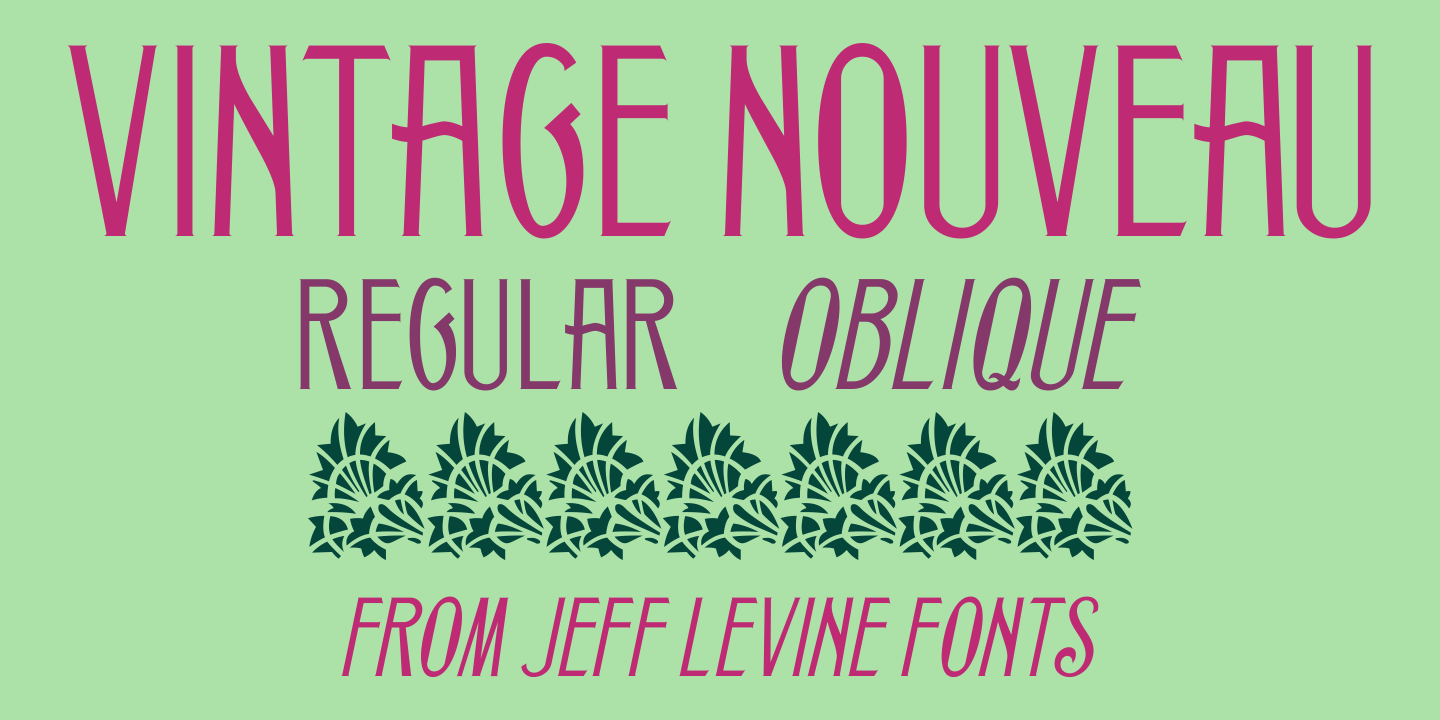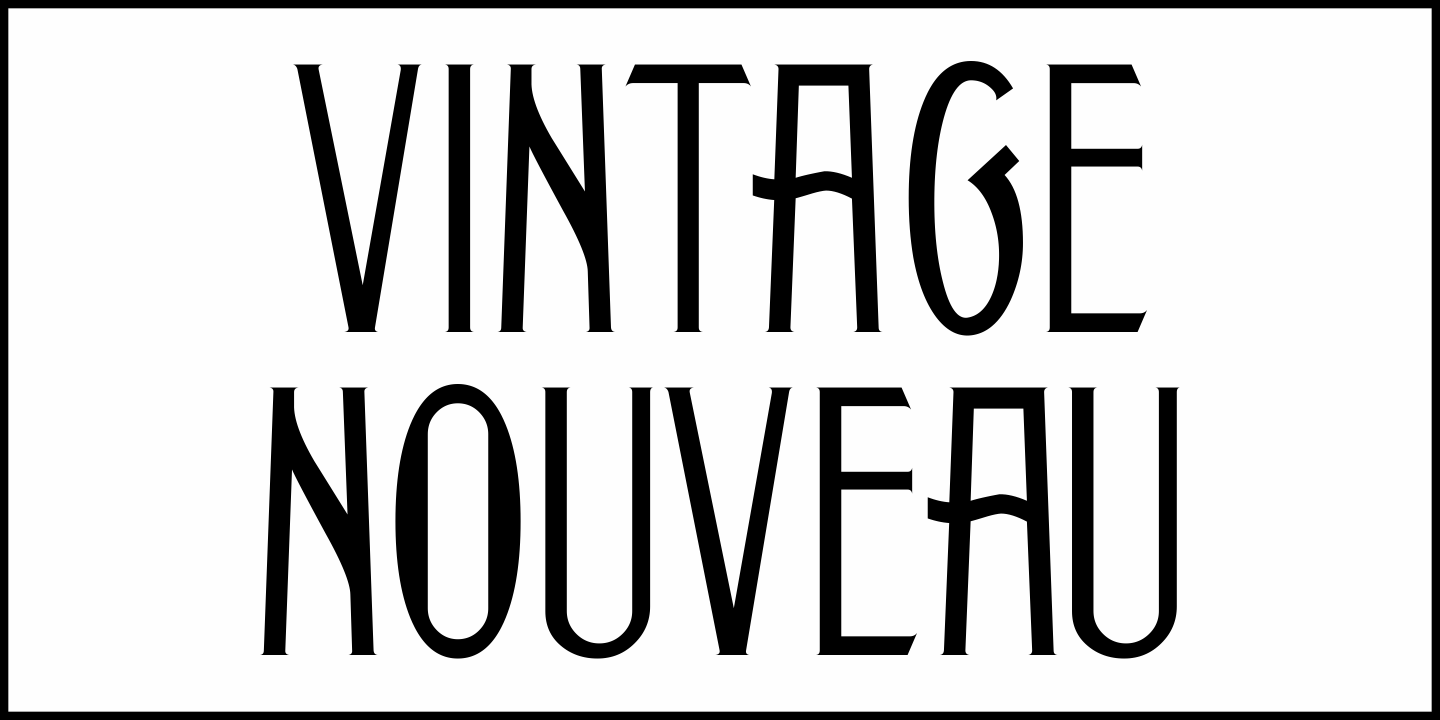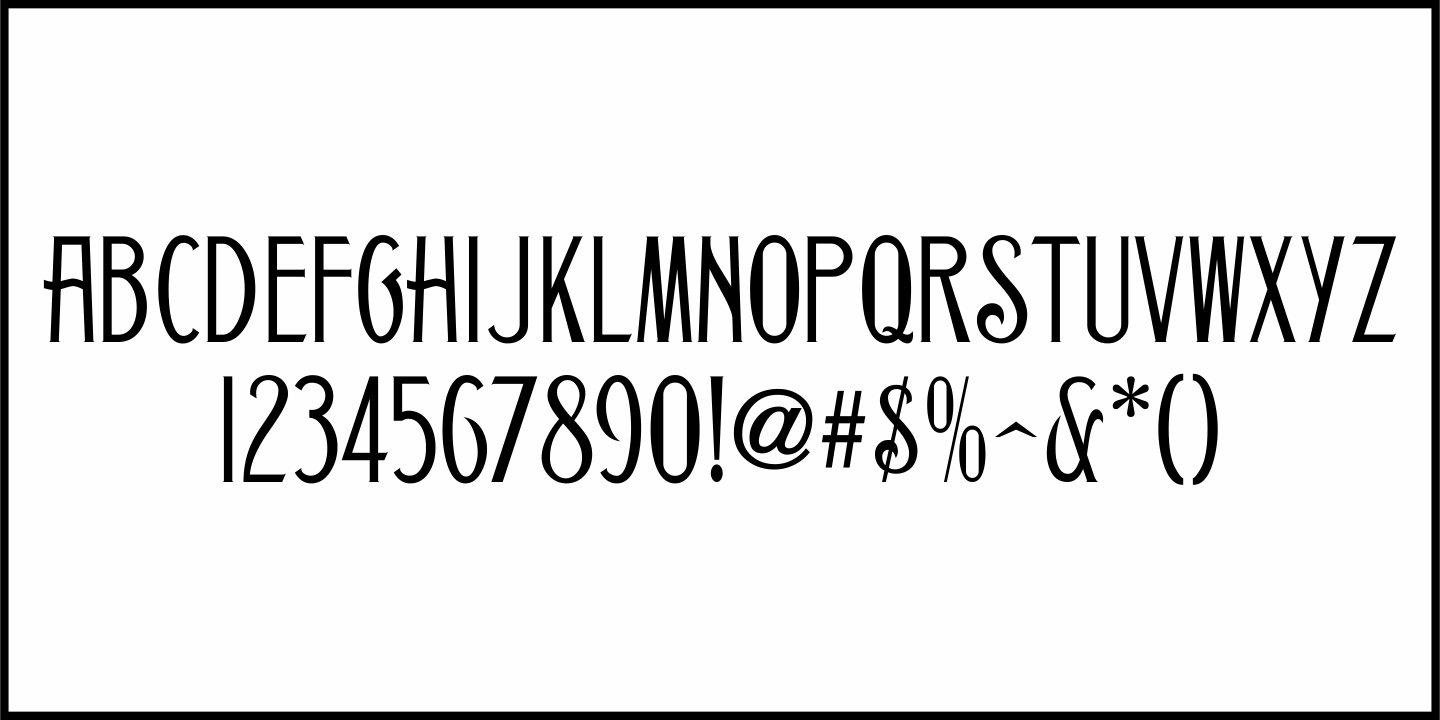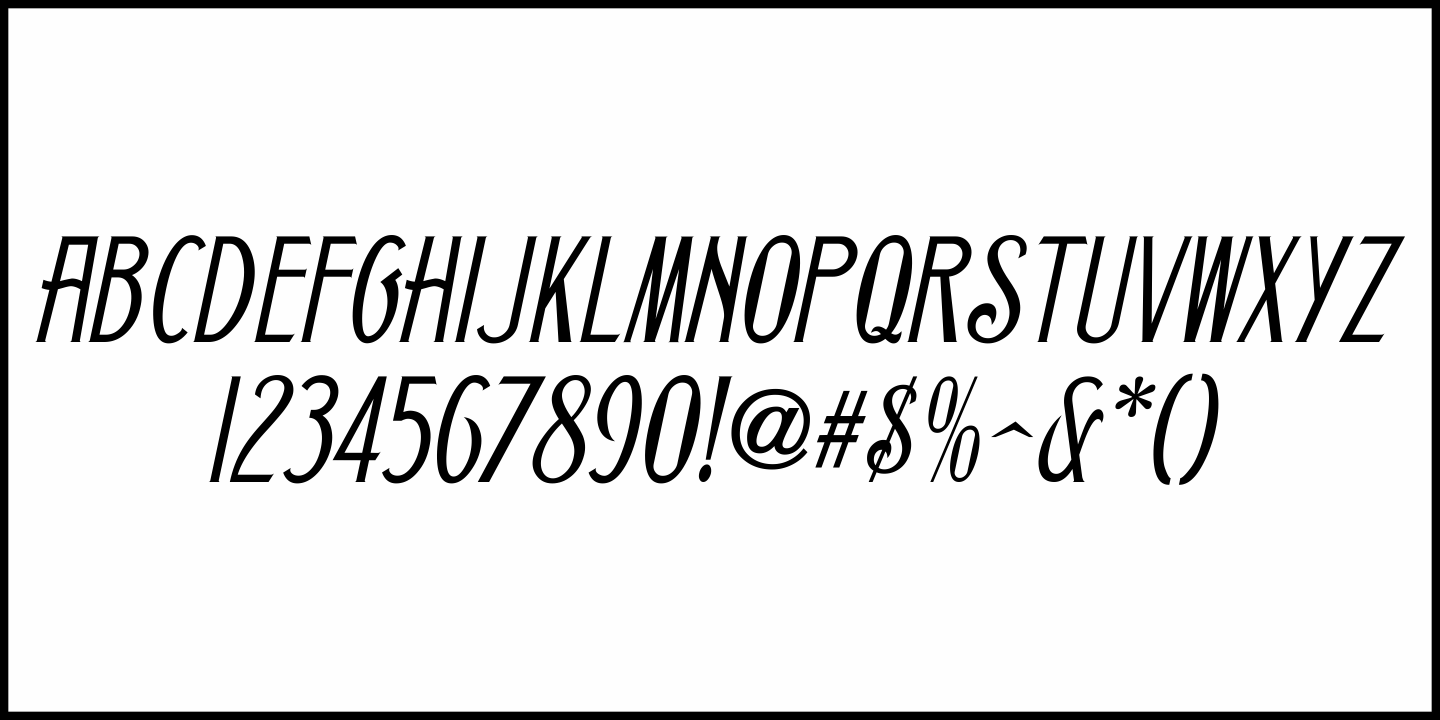
Vintage Nouveau
Here's an interesting example of Art Nouveau metal type from the late 1800s originally released by Barnhart Brothers & Spindler which was modeled from various print ads found in vintage magazines.
This digital type revival is called Vintage Nouveau JNL and is available in both regular and oblique versions.